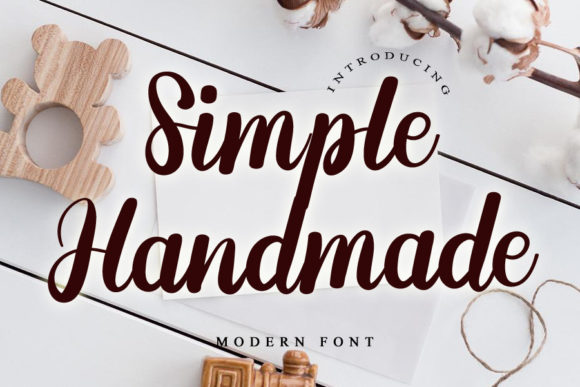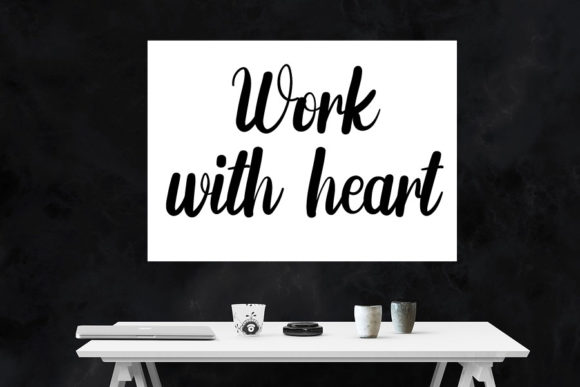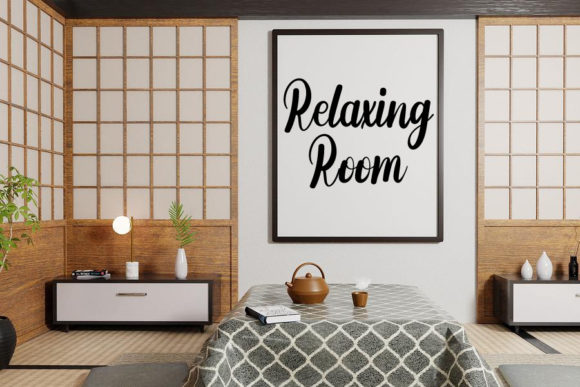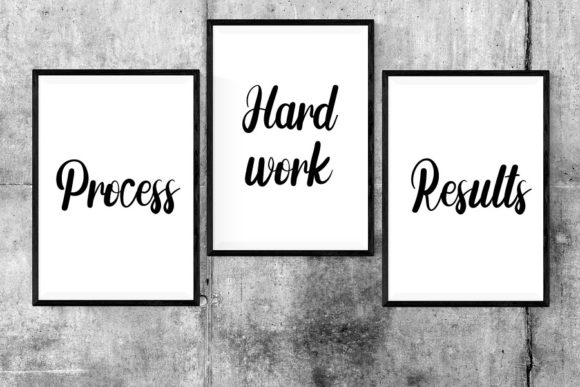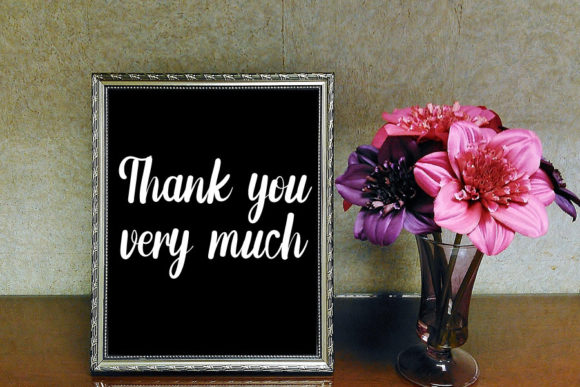
Simple Handmade Font
About Simple Handmade Font
“Simple Handmade” emerges as a fresh and beautiful font, tailored to serve various design purposes and enhance a wide array of creative projects. Whether you’re creating YouTube banners, cover logo mockups, wedding invitations, ID cards, flyers, or crafts, this font is crafted to contribute to the progress and development of your business.
The simplicity and uniqueness of “Simple Handmade” set it apart, infusing a modern and authentic vibe into your designs. Its clean lines and handmade aesthetic ensure versatility, allowing the font to seamlessly adapt to different design contexts and make a positive impact on diverse projects.
For YouTube banners and cover logo mockups, “Simple Handmade” brings a fresh and contemporary feel. Its beauty lies in the simplicity and handmade charm, creating visually appealing graphics that capture attention and convey an authentic and unique style. The font’s adaptability shines in these applications, enhancing the overall design language.
In the domain of wedding invitations and ID cards, “Simple Handmade” introduces an elegant and handmade touch. The font’s fresh and beautiful characteristics contribute to a sense of sophistication, making it suitable for projects that demand a refined and personalized appearance. “Simple Handmade” adds to the overall aesthetic, ensuring that your designs leave a memorable impression.
For flyers and crafts, “Simple Handmade” proves to be a valuable asset. Its handmade style integrates effortlessly into various design elements, elevating the visual appeal of promotional materials and creative projects. The font’s ability to convey simplicity and uniqueness ensures that your message stands out effectively.
Ultimately, “Simple Handmade” is not just a font; it’s a versatile tool crafted to enhance the visual aspects of your designs and contribute to the progress and development of your business. Its fresh and beautiful qualities, combined with simplicity and uniqueness, make it an invaluable asset for designers seeking to create impactful and authentic content across different platforms. Let “Simple Handmade” be the font that adds a touch of handmade charm to your creative endeavors, ensuring that your business stands out in a distinctive and genuine way.